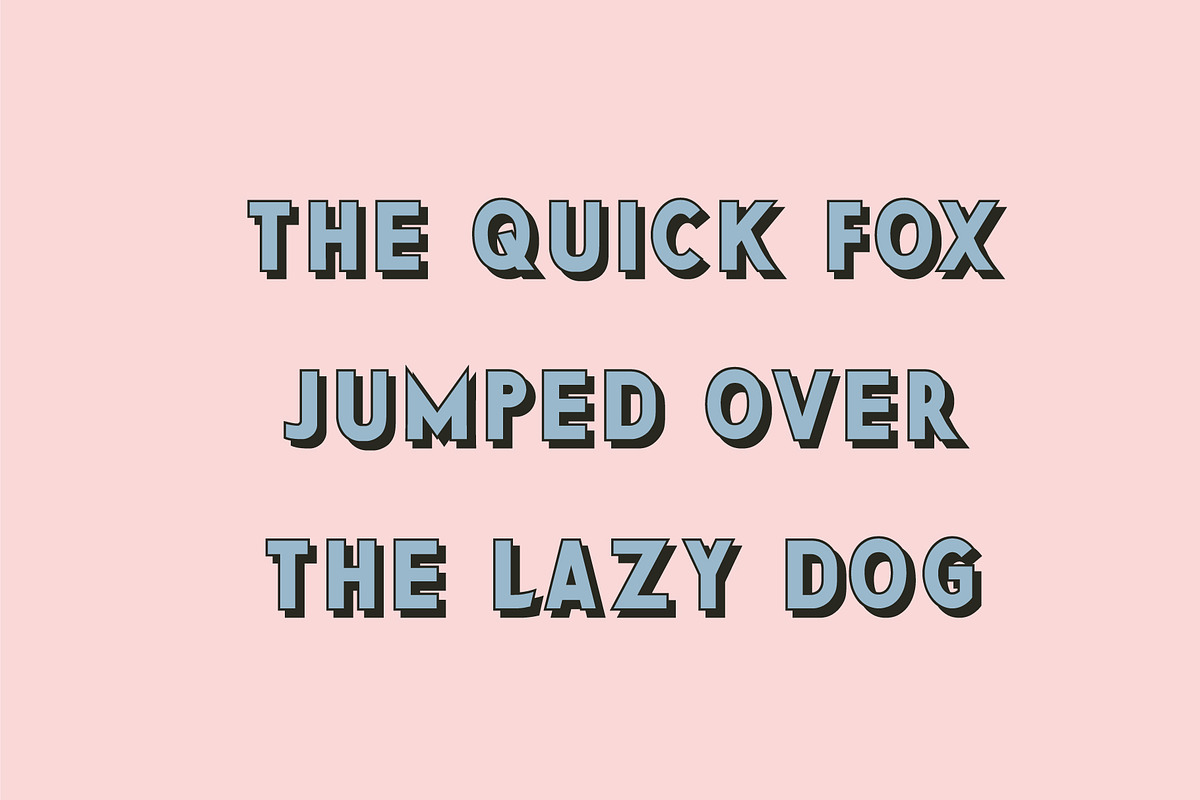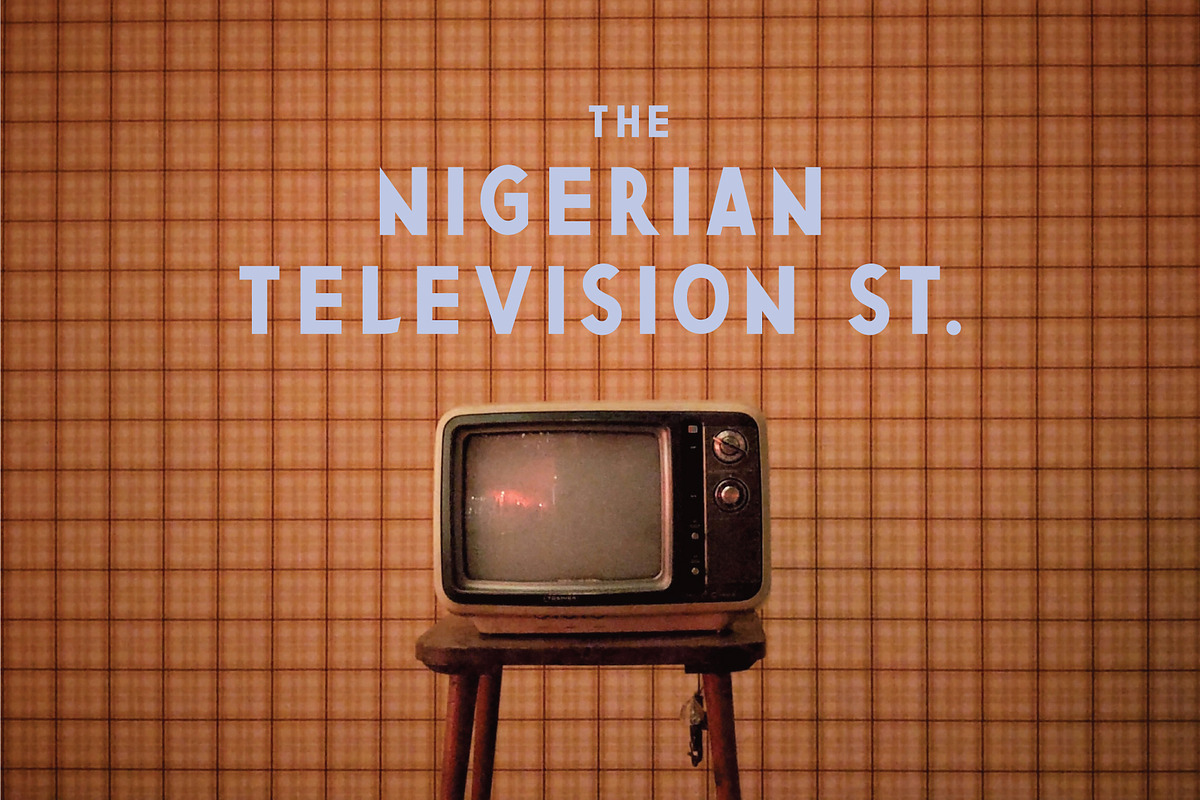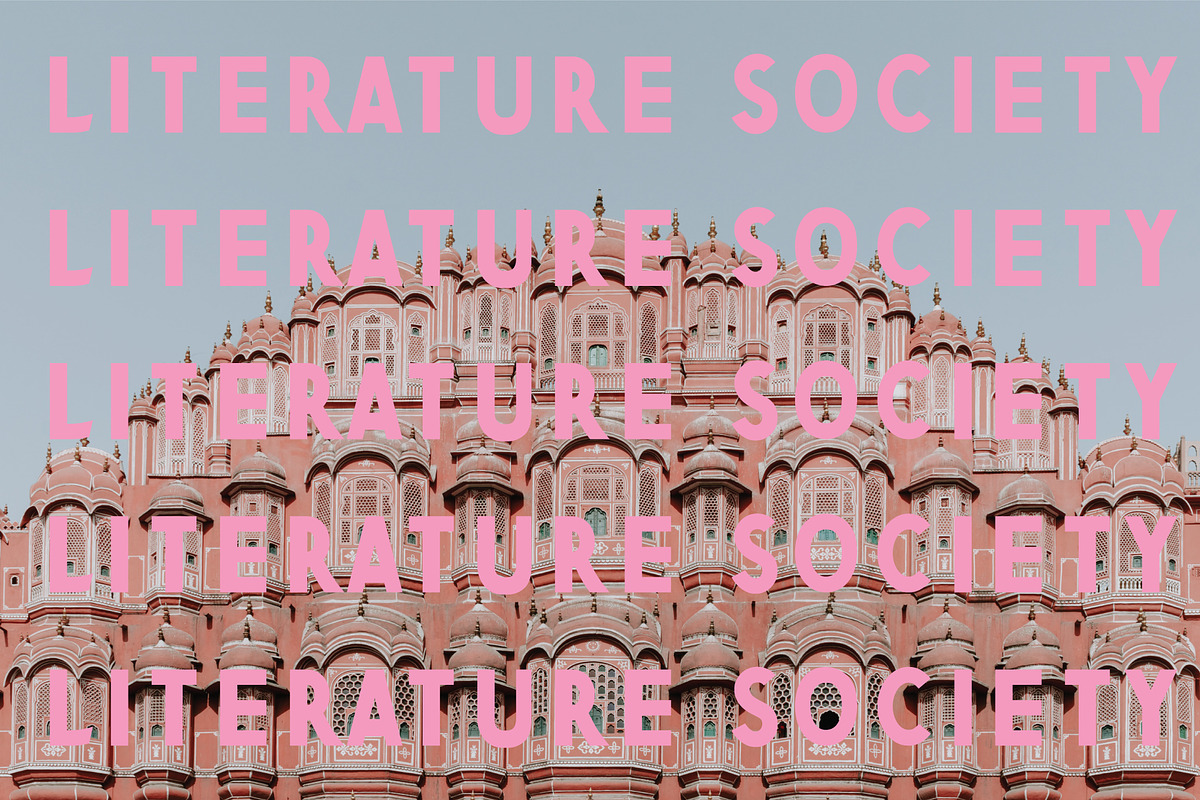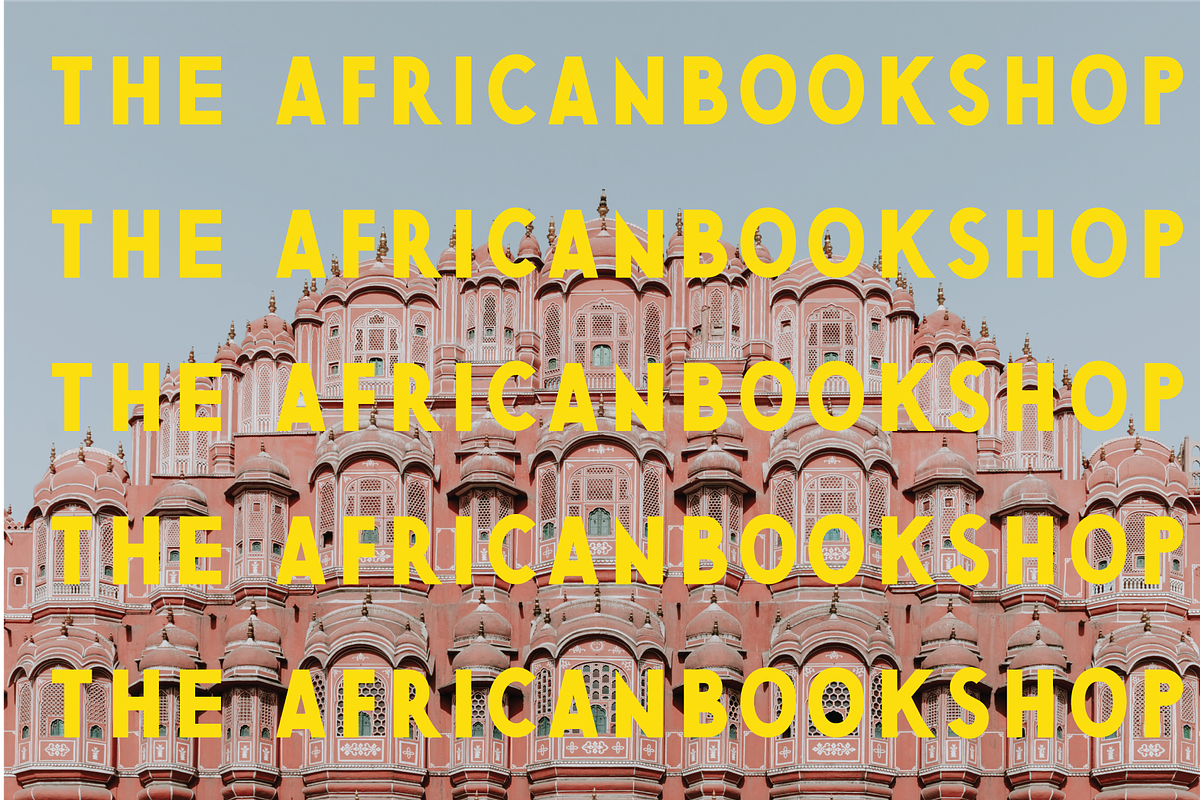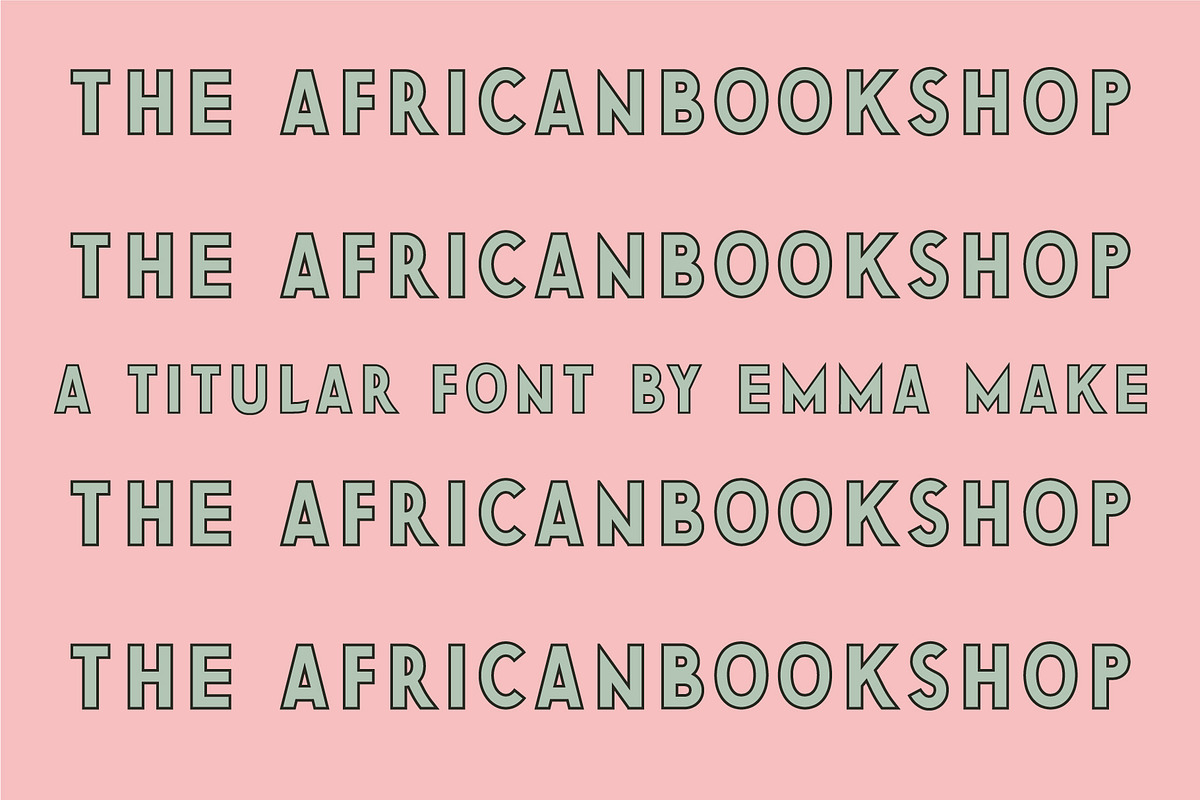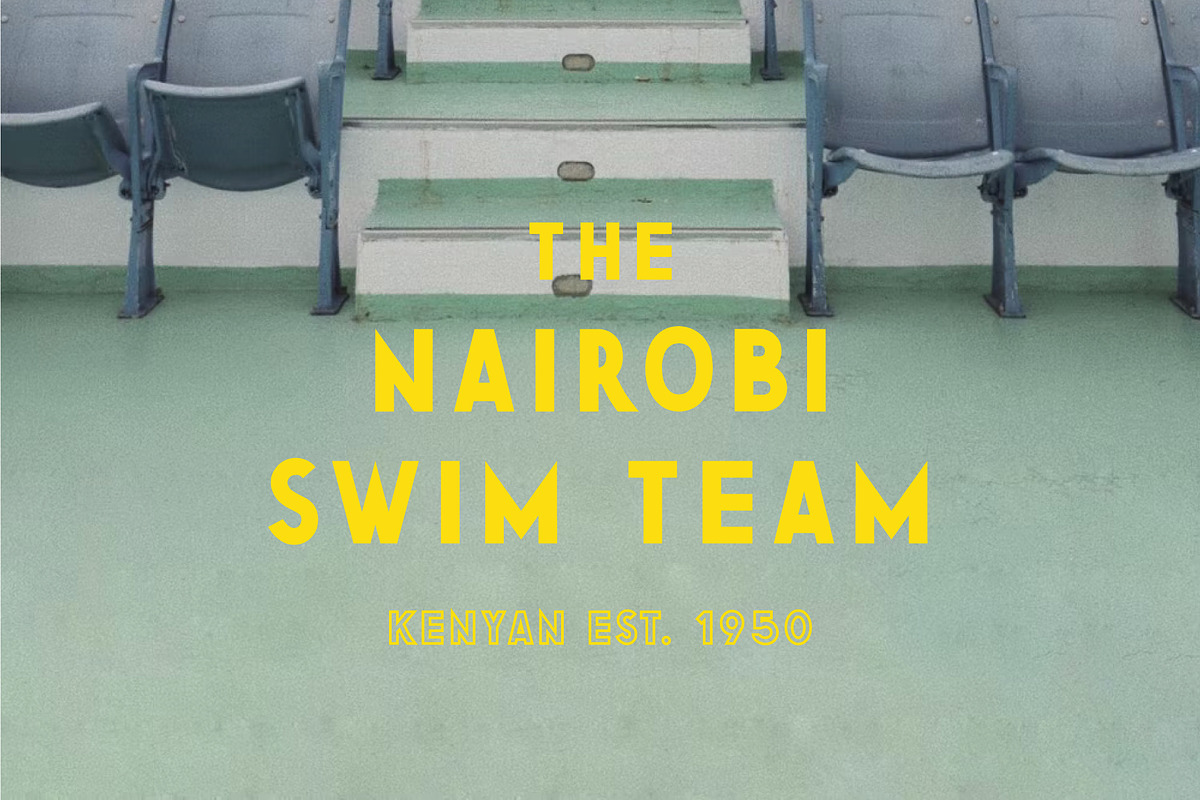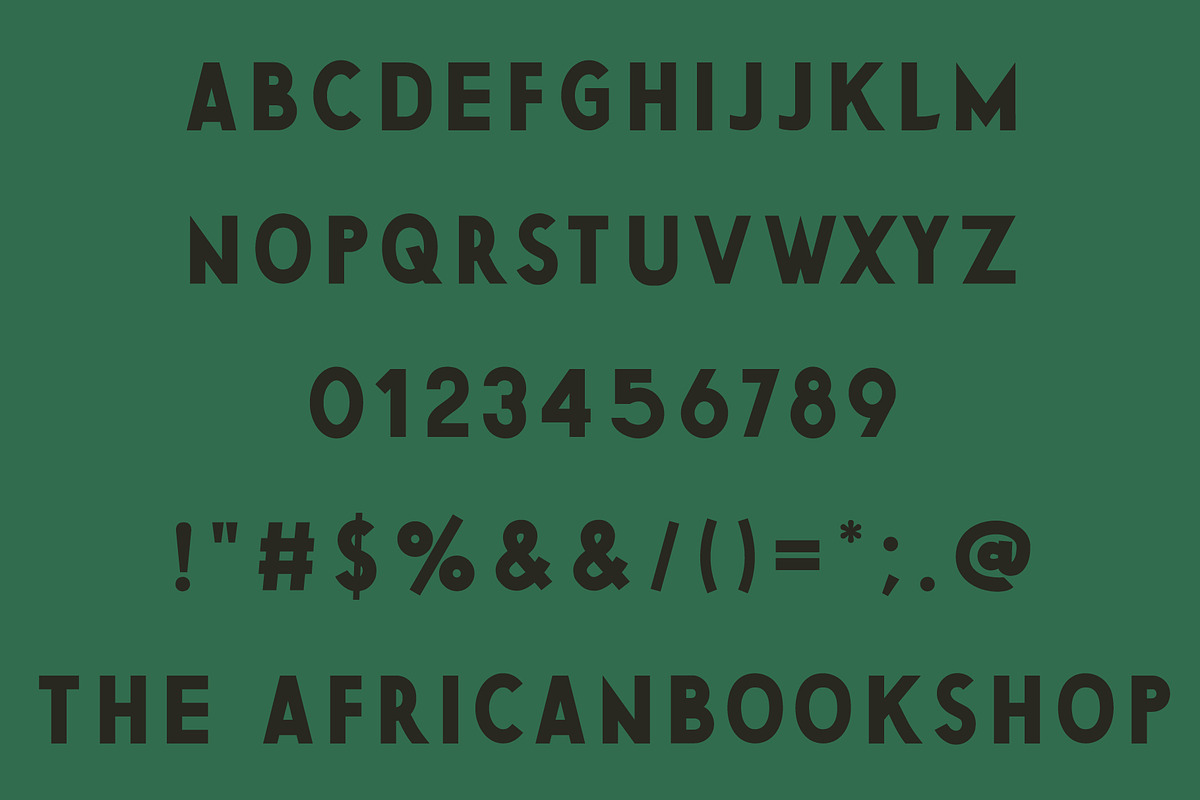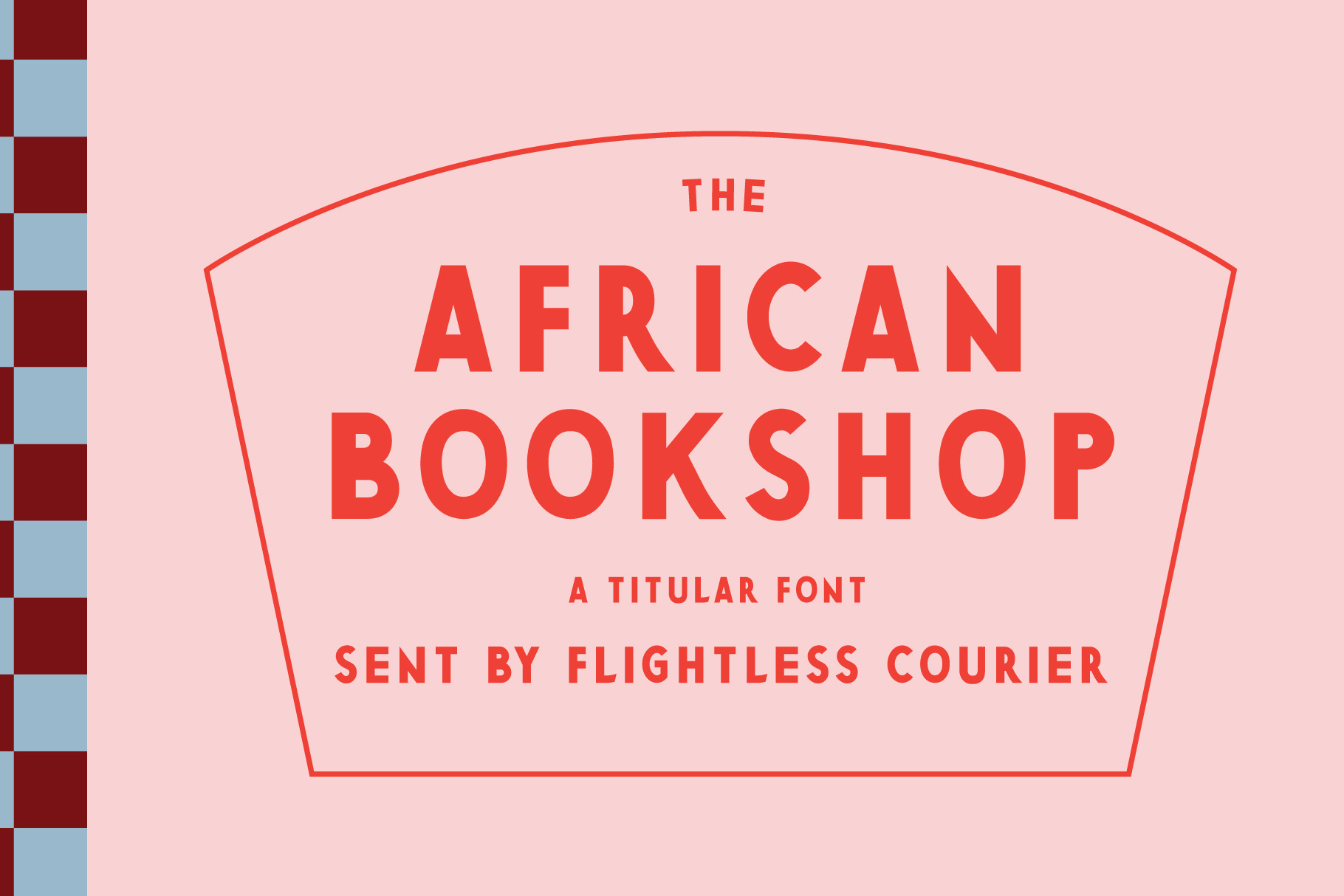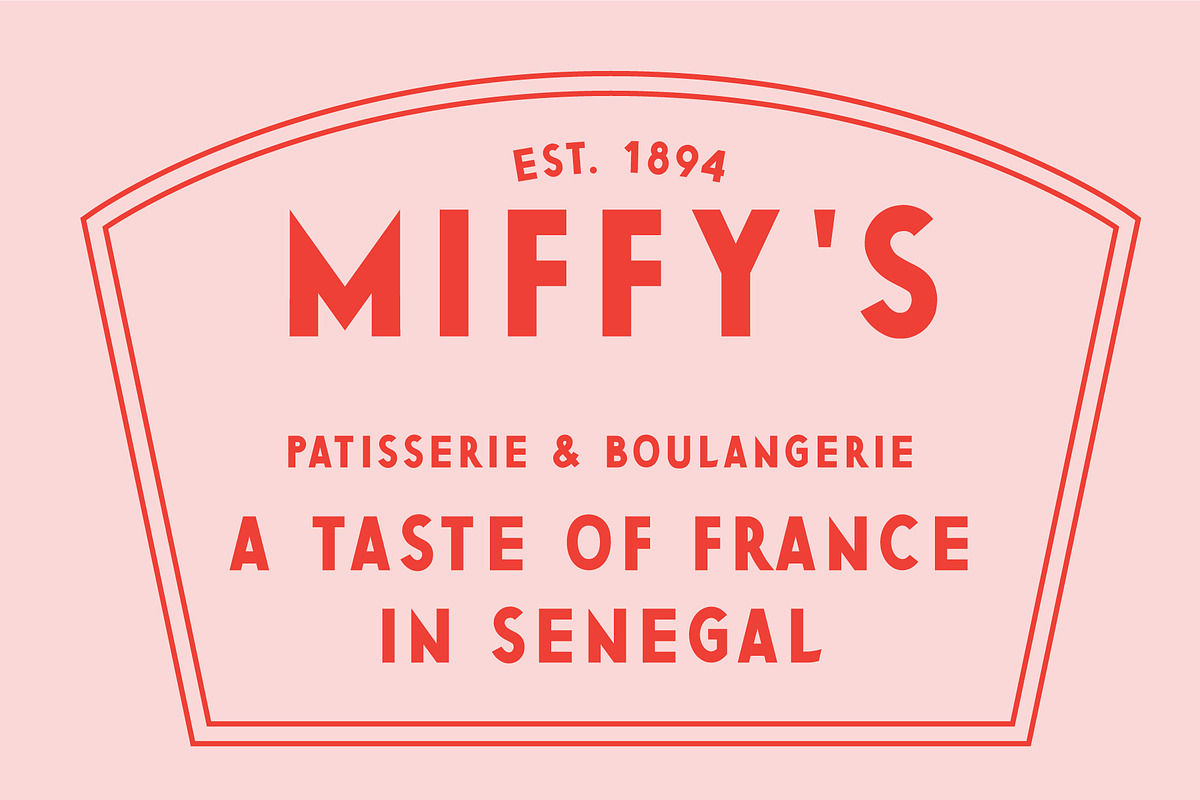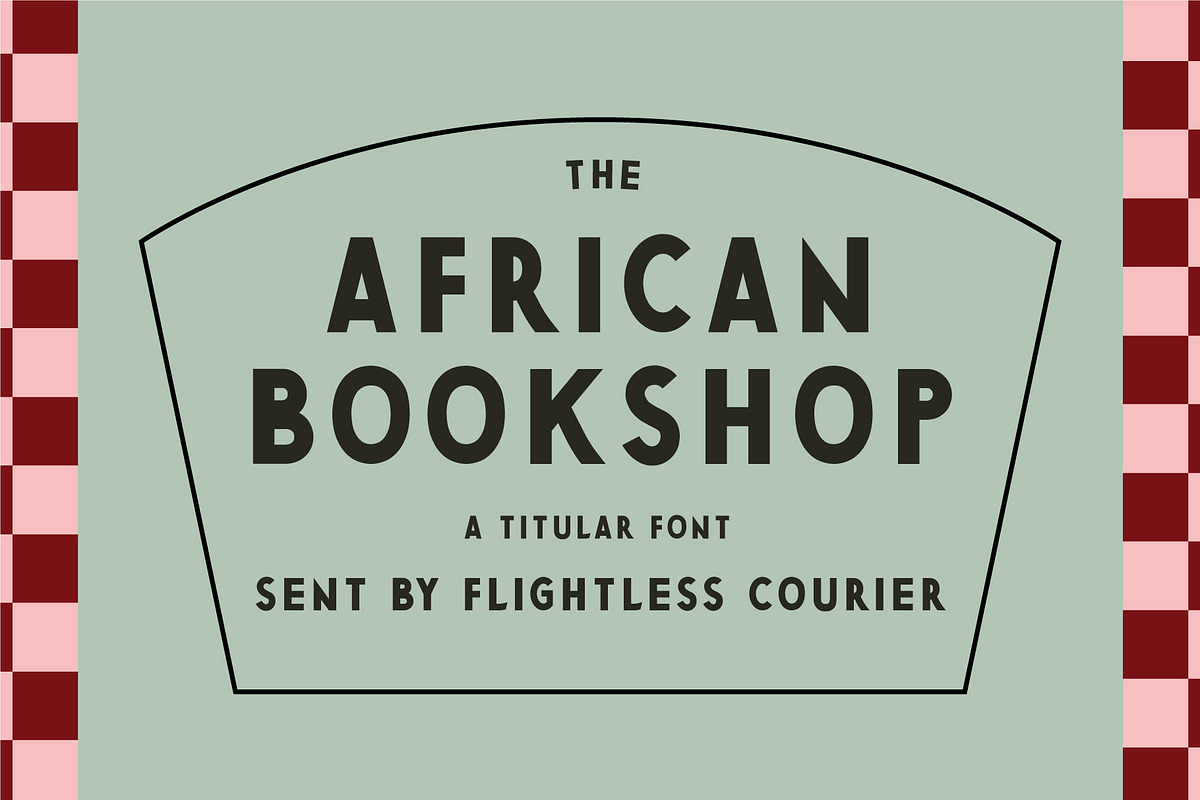
Titular Font - The African BookShop
The African Bookshop is a vintage style, classic sans serif font.
While putting together the mockup images I was taken by how much the font evoked Wes Anderson and my orginal inspiration Tin Tin titles. The font is adaptable; available in outline, shadow and wide options but is specifically made for titles and prints with a hint of the world of travel and class.
- Punctuation, symbols, numbers
- Uppercase letters
- Outline, Wide and Shadow Options